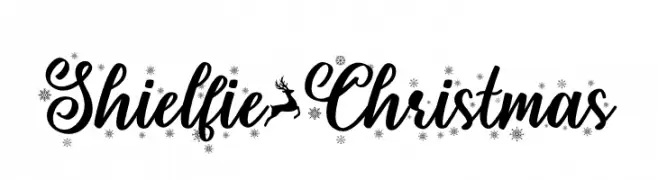
A festive, snowflake-adorned cursive font perfect for holiday themes.
A festive script font with snowflake accents, perfect for holiday-themed designs.